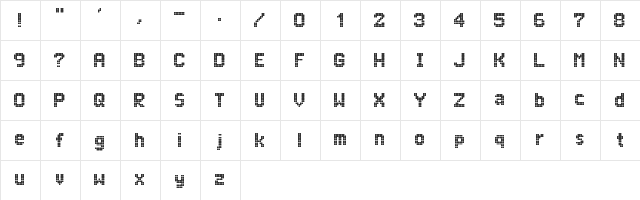
Trapwagen Midden Regular
| Designer | Jeffrey Visser |
Design Context for Trapwagen Midden Typeface
Trapwagen Midden takes a measured approach to typography — its balanced proportions and neutral character make it a reliable workhorse for both digital and print work.